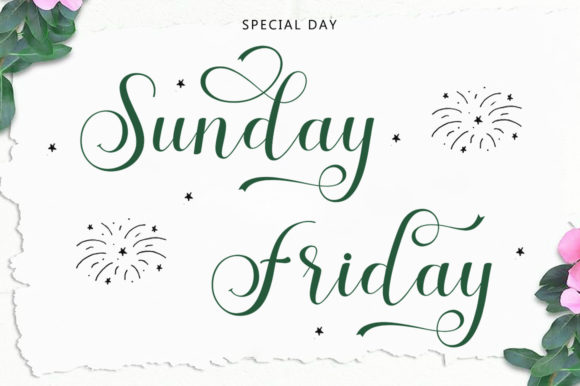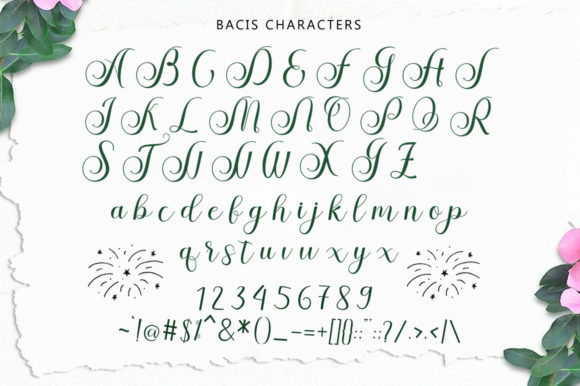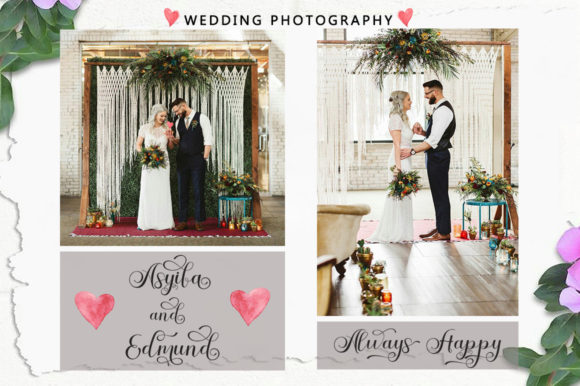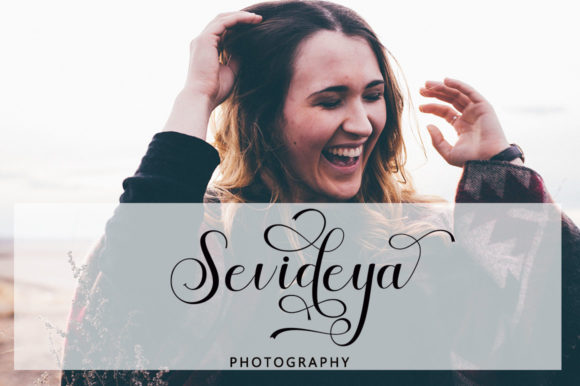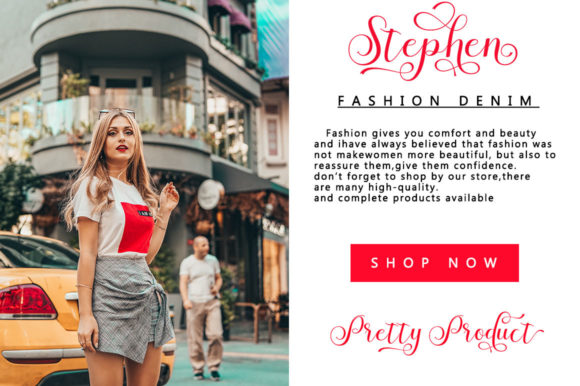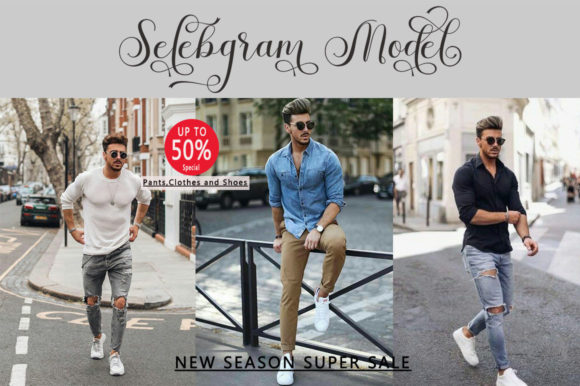
About Stephen Font
Stephen is a beautiful and refined script font. It has a classy, elegant and modern look that can be used for logos, branding, invitations, stationery, wedding designs, social media posts, and much more!